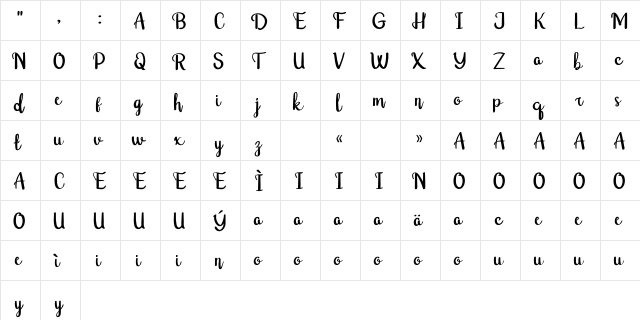
Raxey Regular
| Foundry | rozi |
| Designer | rozi |
Design Context for Raxey Typeface
Raxey is a composed and adaptable typeface that performs quietly and consistently across a wide range of design contexts.